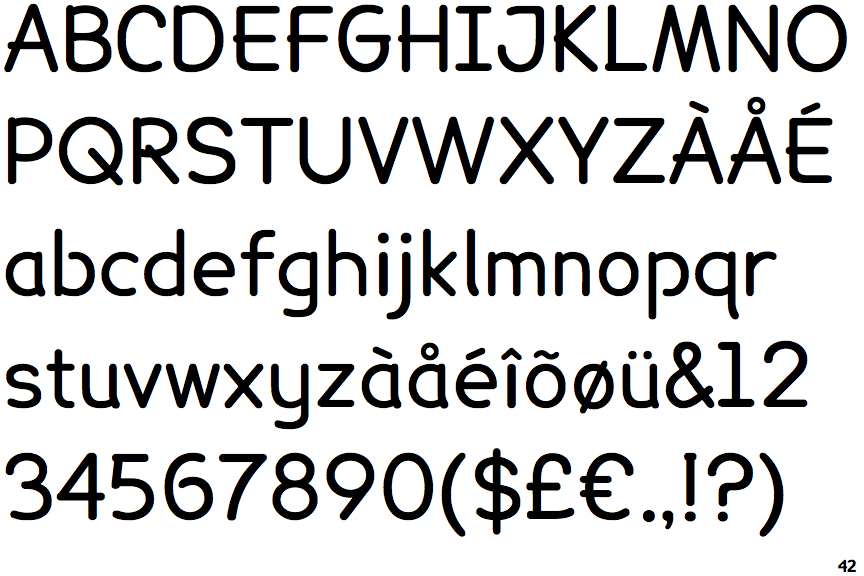
The following are considered the most readable font typefaces for printed text, with several further than this list. Courier may be a serif font, but.
Free Which Font Is The Most Readable With New Ideas, Iphones and other phones use sans serif fonts such as arial for their small label text. News gothic (morris fuller benton, 1908) news gothic is another popular typeface designed by the popular morris fuller benton in the early 19th century as an american san serif, created specifically for atf.
Although it is ostensibly a print font, it looks good on web documents as well due to its open design. Most are serif typefaces, with a few sans serif font families. Its letters aren’t beautiful, but strung into sentences and paragraphs, they have. Readable fonts use sans serif fonts, such as arial and comic sans, as letters can appear less crowded.
Easytoread fonts for body text Updated cuts are then worked by master typographers and font designers.
What is the best font for readability? Every typed word we read is packaged in a font. Adobe caslon (11/12.75 pt) first choice for books, caslon may be the roman alphabet’s most readable typeface. It was originally created in 1982 by patricia saunders and robin nicholas of monotype imaging.
Known for its quirky personality, but reads well on mobile devices. Arial is good in putting much info into a small space. The font feels inseparable from the words we're reading but is the result of an entirely separate process of carefully perfected design.without helvetica, times new roman and comic sans, the reading experience wouldn't have subtle variations in visual aesthetic that allow both signboards and footnotes to be. Adobe caslon (11/12.75 pt) first choice for books, caslon may be the roman alphabet’s most readable typeface. Most Readable Font Typefaces for Print.
The most legible fonts arial. The font design is modern and has a neutral and friendly. Courier may be a serif font, but. Pt sans & pt serif. Identifont Lexie Readable.
Known for its quirky personality, but reads well on mobile devices. 10 best fonts for improving reading experience merriweather. Alternatives include verdana, tahoma, century gothic, trebuchet, calibri, open sans. Arial is good in putting much info into a small space. Lexie Readable Font Download.
Tisa is a newer font popular among graphic and web designers. The following are considered the most readable font typefaces for printed text, with several further than this list. Every typed word we read is packaged in a font. Easy differentiation of letter shapes, and also between headings and body text, is essential. What is the best, and most readable font for an extremely small space.
Known for its quirky personality, but reads well on mobile devices. The font feels inseparable from the words we're reading but is the result of an entirely separate process of carefully perfected design.without helvetica, times new roman and comic sans, the reading experience wouldn't have subtle variations in visual aesthetic that allow both signboards and footnotes to be. Updated cuts are then worked by master typographers and font designers. What is the best font for readability? Identifont Data 70.
The following are considered the most readable font typefaces for printed text, with several further than this list. Most are serif typefaces, with a few sans serif font families. Which font is best for small size? All government studies show no statistically significant increase or decrease between serif and sans serif fonts. Lexia Readable Windows font free for Personal.
Adobe caslon (11/12.75 pt) first choice for books, caslon may be the roman alphabet’s most readable typeface. When in doubt just use font: Arial is a very commonly used typeface. My personal favorites are trebuchet for screens and. Easiest font to read What to use in your designs.
Pt sans & pt serif. It was originally created in 1982 by patricia saunders and robin nicholas of monotype imaging. There is a new roman. In fact, some san serif fonts can be less readable than some serif fonts. Readable Gothic font by Manfred Klein FontRiver.
The standard size for a resume is 12 points. Sanserif fonts in small sizes are easier to read on the screen then serif fonts. Most are serif typefaces, with a few sans serif font families. Pontiac is a rounded sans serif typeface with 4 font styles that is readable in both large and small sizes. Readable Gothic free Font in ttf format for free download 22.05KB.
All government studies show no statistically significant increase or decrease between serif and sans serif fonts. Lucida is clear and easy to read, which is why it made the list and is favored by many graphic designers. Sanserif fonts in small sizes are easier to read on the screen then serif fonts. Miles is a geometric san serif font. Easytoread fonts for body text.
My personal favorites are trebuchet for screens and. This font was designed by william caslon in the 18th century and has a somewhat textured appearance. Courier may be a serif font, but. Pt sans & pt serif.
A Sans Serif Font Is Not Necessarily More Readable Than A Serif Font.
It also has support for external latin character set. Iphones and other phones use sans serif fonts such as arial for their small label text. Everyone of us have many times heard or said statements like: Sanserif fonts in small sizes are easier to read on the screen then serif fonts.